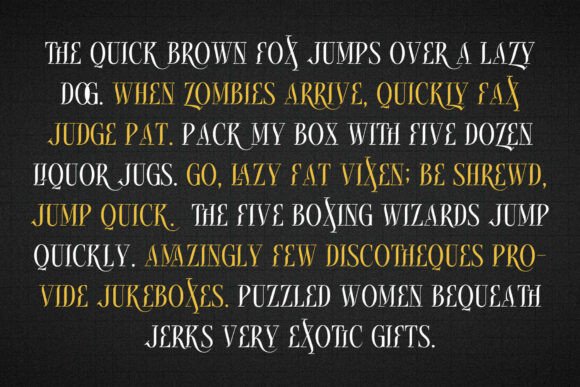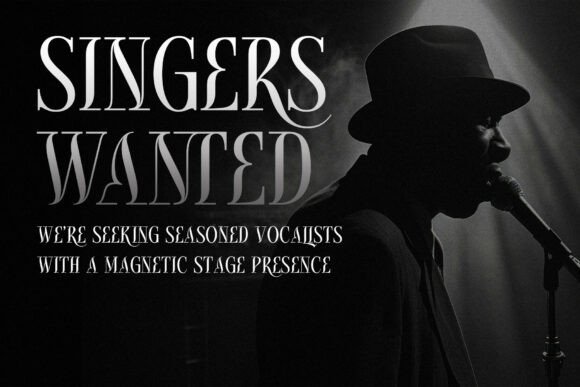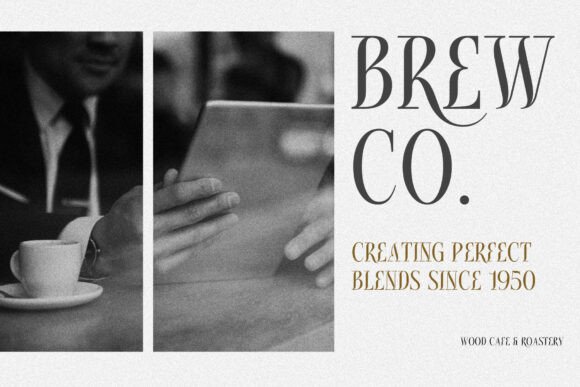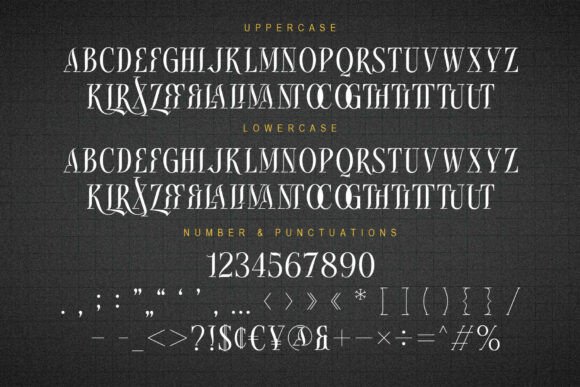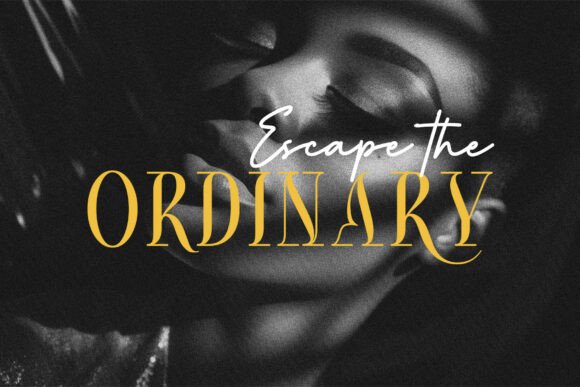
Introduction to Roxante Font
Do you remember that moment when you stumbled upon the perfect font for your creative project? The one that elevates your design to the next level and makes your work truly stand out? For designers like you, finding the right font can be a game-changer, and that’s exactly what we’re excited to introduce you to – the stunning Roxante Font.
With its elegant and bold serif style, Roxante Font is a high-quality design resource that’s sure to impress. Whether you’re working on a beautiful wedding invitation, a stunning social media post, or a unique piece of stationary art, Roxante Font is the perfect companion to bring your ideas to life.
Key Features of Roxante Font
- High-quality design resource with a unique, modern aesthetic.
- Transparent background, making it ideal for creative projects requiring a clean and minimalist look.
- Designed to be versatile and adaptable, making it suitable for a wide range of creative projects, from branding and marketing materials to digital art and graphics.
Honest Review: Roxante Font
I recently stumbled upon the Roxante Font and I must say it’s been a game-changer for my creative projects. As a designer, I’m always on the lookout for high-quality fonts that can elevate my designs and communicate my message effectively.
Here are some of the things that work well with the Roxante Font:
However, I do have some limitations to mention:
- ⚠️ Limited font styles available, which might be a drawback for some designers
- ⚠️ Not suitable for projects that require a lot of customization
Roxante Font
The Roxante Font is a high-quality design resource ideal for creative projects that require a unique and elegant touch. With its transparent background, it’s perfect for adding a stylish element to your designs without overpowering the rest of the content.
Tips for Getting the Most Out of Roxante Font
For the best results, use the Roxante Font in combination with a clean and simple design. Experiment with different font sizes and colors to create a unique and eye-catching effect.
The Roxante Font is ideal for a variety of creative projects, including wedding invitations, business cards, and social media graphics. Its elegant and sophisticated design makes it perfect for projects that require a touch of luxury and sophistication.